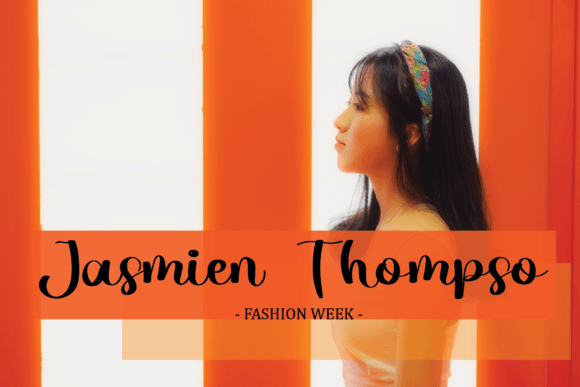
Aesthetic House Font: Elevate Your Designs with Elegance and Sophistication
In the world of typography, fonts play a crucial role in conveying the tone and personality of a design. When it comes to creating elegant and sophisticated designs, the right font can make all the difference. This is where Aesthetic House Font comes in – an exquisite handwritten font that adds a touch of luxury and refinement to any design.
What is Aesthetic House Font?
Aesthetic House Font is an elegant handwritten font that boasts beautiful characters and a modern impression. Its stunning appearance makes it perfect for a variety of design applications, including wedding invitations, thank you cards, greeting cards, business cards, logos, advertisements, quotes, and more.
Key Features of Aesthetic House Font
- Handwritten touch: Aesthetic House Font offers a unique, handwritten touch that adds a personal and emotional feel to your designs.
- Varied hand strokes: The font features varied and interesting hand strokes in the form of lines, fields, and stunning alternates.
- Elegant characters: Each character is carefully crafted to exude elegance and sophistication.
- Modern impression: The font creates a modern impression, making it perfect for designs that require a contemporary feel.
Design Applications for Aesthetic House Font
Aesthetic House Font is an incredibly versatile font that can be used in a wide range of design applications. Here are some of the most popular uses:
- Wedding invitations: Add a touch of elegance and sophistication to your wedding invitations with Aesthetic House Font.
- Thank you cards: Express your gratitude with beautifully designed thank you cards featuring Aesthetic House Font.
- Greeting cards: Create stunning greeting cards for special occasions, such as birthdays, anniversaries, and holidays.
- Business cards: Elevate your business cards with Aesthetic House Font and make a lasting impression on your clients and partners.
- Logos: Use Aesthetic House Font to create a unique and memorable logo for your brand.
- Advertisements: Add a touch of elegance and sophistication to your advertisements with Aesthetic House Font.
- Quotes: Create inspiring and visually appealing quotes with Aesthetic House Font.
Typography Tips for Using Aesthetic House Font
To get the most out of Aesthetic House Font, here are some typography tips to keep in mind:
- Pair with contrasting fonts: Pair Aesthetic House Font with contrasting fonts to create visual interest and hierarchy.
- Use font sizes effectively: Use font sizes effectively to create a clear visual hierarchy and emphasize important information.
- Experiment with colors: Experiment with different colors to find the perfect combination that complements your design.
- Pay attention to spacing: Pay attention to spacing and ensure that the font is not too cramped or too spaced out.
Benefits of Using Aesthetic House Font
Here are some benefits of using Aesthetic House Font in your designs:
- Unique and distinctive: Aesthetic House Font is a unique and distinctive font that sets your designs apart from the rest.
- Elegant and sophisticated: The font exudes elegance and sophistication, making it perfect for high-end designs.
- Versatile: Aesthetic House Font is incredibly versatile and can be used in a wide range of design applications.
- Easy to read: The font is easy to read, making it perfect for designs that require a clear and concise message.
| Font Name | Aesthetic House Font |
In conclusion, Aesthetic House Font is an exquisite handwritten font that adds a touch of elegance and sophistication to any design. Its unique and distinctive characters, varied hand strokes, and modern impression make it perfect for a wide range of design applications. Whether you’re designing wedding invitations, business cards, or advertisements, Aesthetic House Font is sure to elevate your designs and make them stand out.